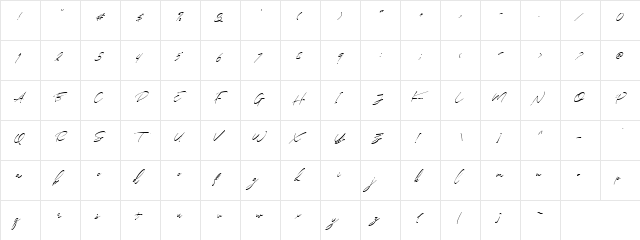
William Letter Signature DEMO Regular Font Preview
William Letter Signature DEMO Regular
William Letter Signature DEMO Regular Font Details
| Foundry | Letterhend Studio |
| Designer | Sarid Ezra |
Design Context for William Letter Signature DEMO Typeface
William Letter Signature DEMO is a composed and adaptable typeface that performs quietly and consistently across a wide range of design contexts.